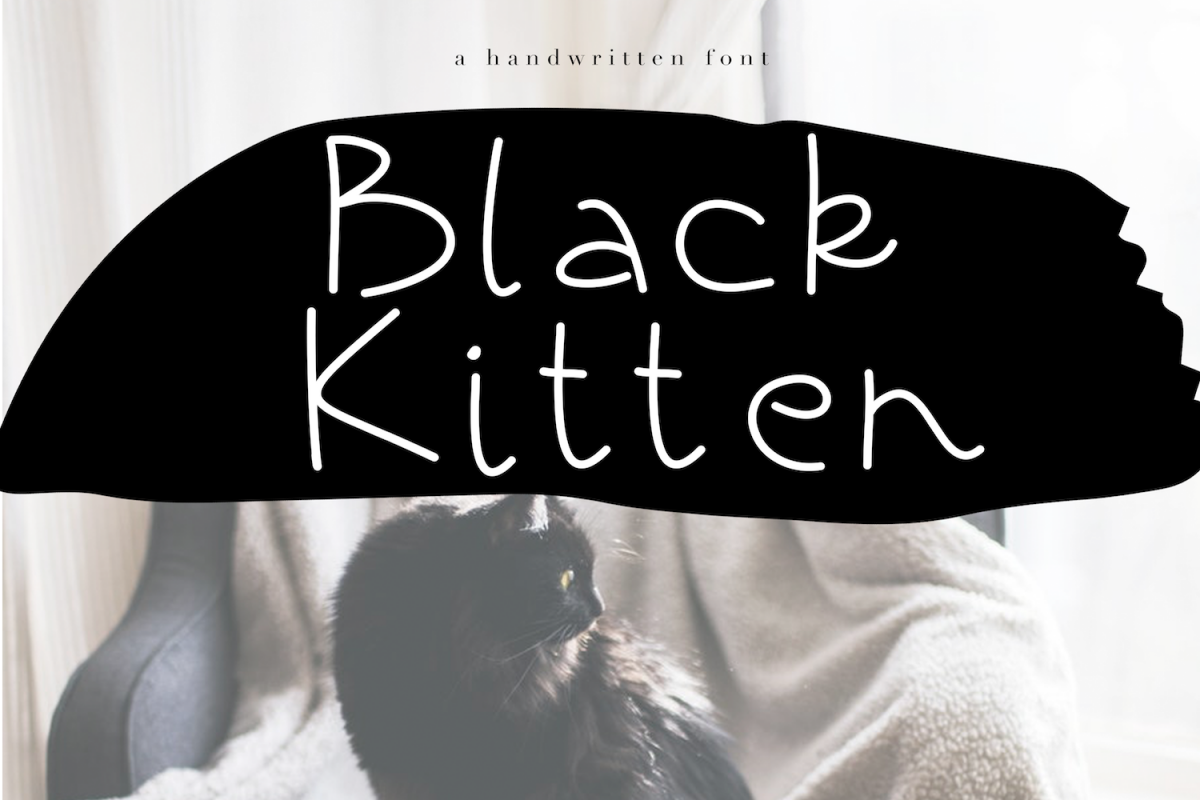
Black Kitten - A Handwritten Font
Black Kitten is a fun handwritten font.
This font is perfect for quotes, headings, blogs, logos, invitations and more!